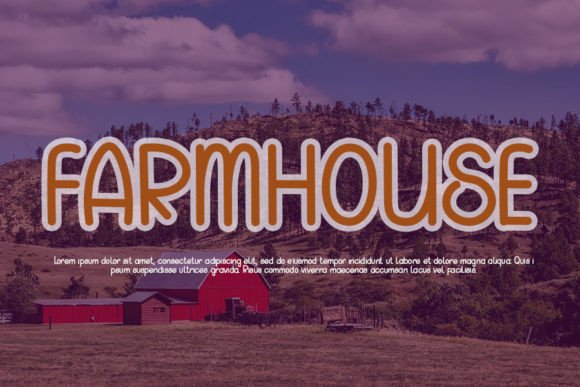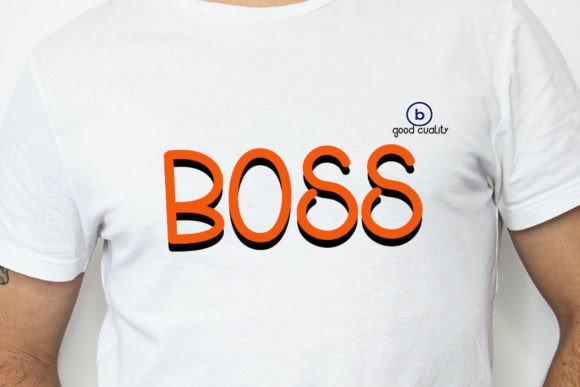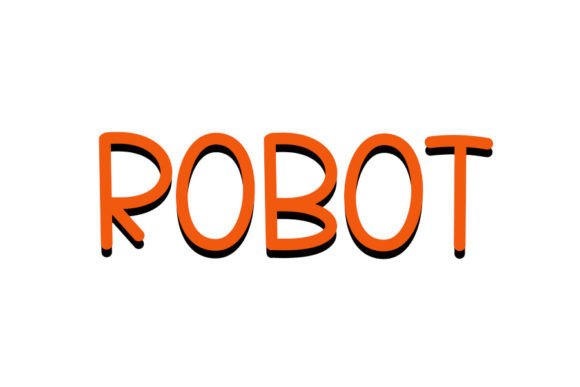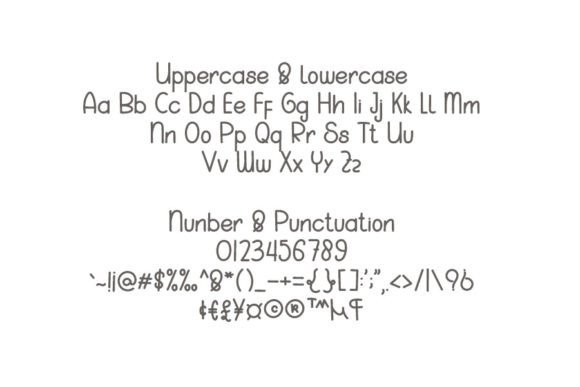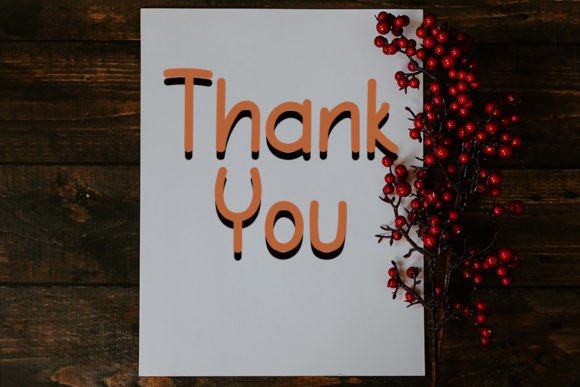
Introducing Animation Font: Elevate Your Designs with a Modern Handwritten Style
Are you tired of using the same old fonts in your designs? Look no further than Animation Font, a cool handwritten display font that’s taking the design world by storm. With its modern vibe and spotless form, this font is perfect for designers and crafters looking to add a touch of elegance and sophistication to their projects.
Balanced and Varied: The Unique Characteristics of Animation Font
One of the standout features of Animation Font is its balanced and varied design. Not too thin and not too thick, this font strikes the perfect balance between legibility and aesthetics. The characters are carefully crafted to provide a smooth and harmonious reading experience, making it ideal for use in a variety of design applications, from titles and headings to quotes and phrases.
A Modern Vibe with a Personal Touch
Animation Font boasts a distinctly modern vibe that’s perfect for designers looking to create fresh and contemporary designs. The font’s clean lines, subtle curves, and carefully crafted letterforms give it a unique and stylish feel that’s sure to capture the attention of your audience. Whether you’re designing a logo, a poster, or a website, Animation Font is the perfect choice for adding a touch of modern sophistication to your project.
Enhance the Beauty of Your Projects
Animation Font was designed to enhance the beauty of your projects, and it’s easy to see why. The font’s elegant design and versatile style make it perfect for use in a wide range of design applications, from print to digital. Whether you’re creating a business card, a brochure, or a website, Animation Font is the perfect choice for adding a touch of class and sophistication to your design.
Animation Font is a must-have for designers and crafters looking to elevate their designs and take their creativity to the next level. With its modern vibe, balanced design, and versatile style, this font is perfect for anyone looking to add a touch of elegance and sophistication to their projects. Whether you’re a professional designer or a hobbyist crafter, Animation Font is the perfect choice for anyone looking to create beautiful and effective designs.
Key Features of Animation Font
- Modern handwritten display font with a spotless form
- Balanced and varied design for optimal legibility and aesthetics
- Perfect for use in a wide range of design applications, from print to digital
- Unique and stylish feel that’s sure to capture the attention of your audience
Animation Font is a cool handwritten display font with a modern vibe and spotless form. With its balanced and varied design, unique and stylish feel, and versatility, this font is perfect for designers and crafters looking to elevate their designs and take their creativity to the next level. Whether you’re creating a logo, a poster, or a website, Animation Font is the perfect choice for adding a touch of elegance and sophistication to your project.